Top 10 best sans-serif font to make your designs more impressive
Sans-serif font originated in the 18th century but did not become widely used until the 19th century. In the world of print, serif typefaces are almost universally used to establish body text. running, however, on the web, sans-serif typefaces prevail. Here we have 10 best Sans-Serif recommend you to use to make your designs more impressive.
Sprout - Sans Serif
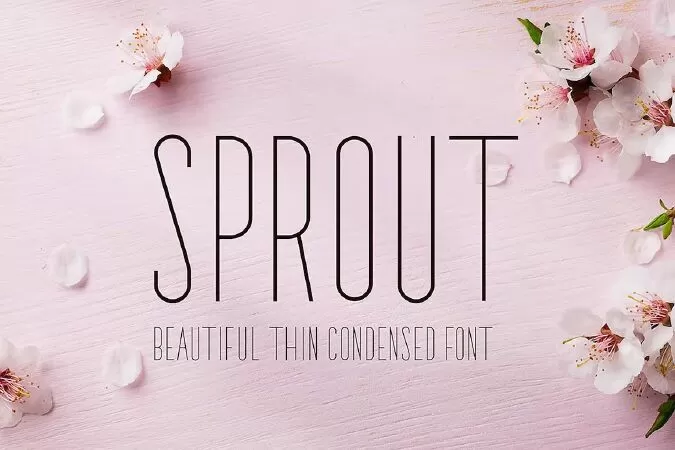
Introducing: Sprout! A beautiful and elegant Thin Condensed Sans Serif font perfect for crafting all your wedding designs. It's also perfect for that feminine and delicate look that you want in your invitations, wedding albums, website, etc.
- Uppercase & Lowercase
BILMA - Sans Serif
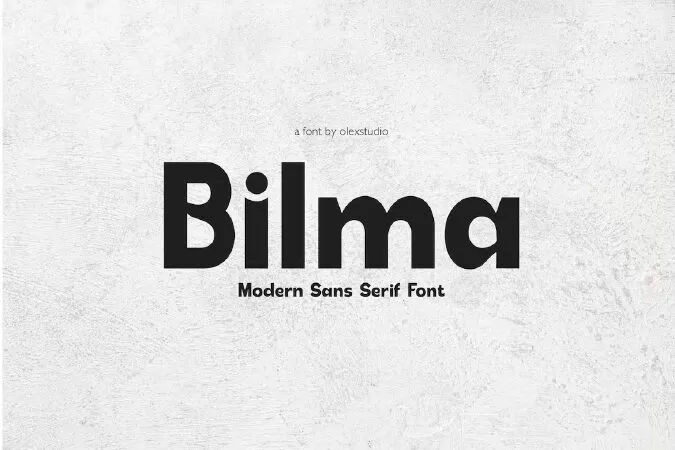
BILMA - Sans Serif is a modern sans serif Font will look gorgeous on all your designs,
BILMA - Sans Serif contains standard characters Uppercase, lowercase, numbers, punctuation, ligatures and international glyphs. You will receive OTF, TTF files & WEBFONT.
Hoodger Sans-Serif
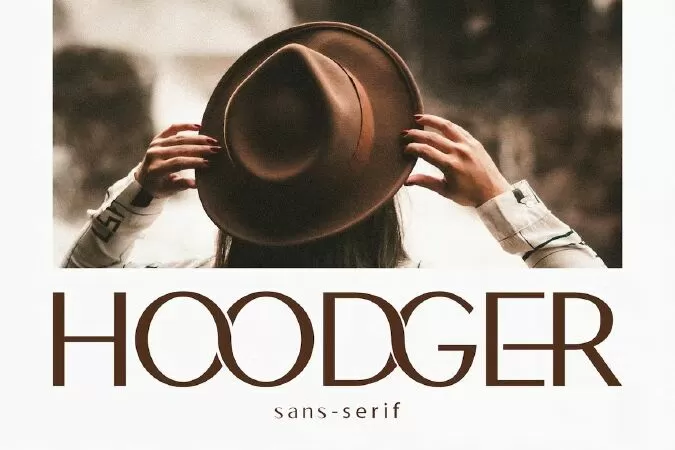
Introducing the Hoodger Modern Sans-Serif Font. Neatness in each character of the letter is our top priority in making this font. Hoodger Sans-Serif fonts prioritize neatness and accentuate a modern and elegant impression. Hoodger fits for any design projects, such as posters, banners, logos, invitations, magazine covers, quotes, headings, printed products, social media, etc. Find out more ways to use this font by taking a look at the font preview.
Bllad Sans Serif
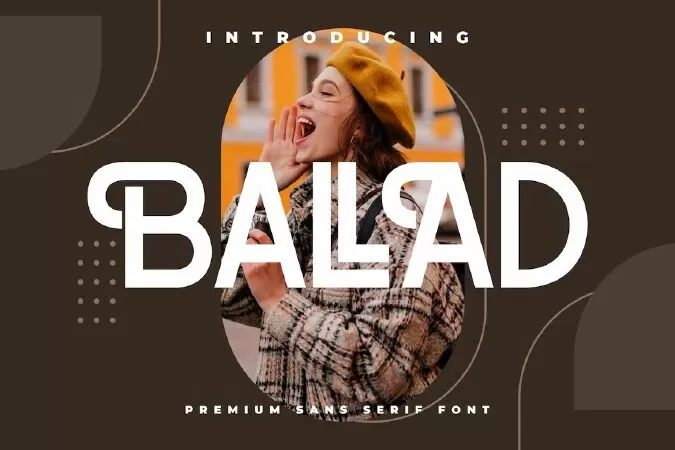
Hi ladies & gentlemen, this is one of our fonts suitable to complement your digital and printed creative products. This font is perfect for posters, social media posts, branding, personal projects, etc.
Etna Sans Serif
The ETNA comes with 415 glyphs, cyrillic and latin extended. The typeface is custom made with maximum precision and sourcing high aesthetics. The flow of the letters is seamless and easy to read with great bold accents